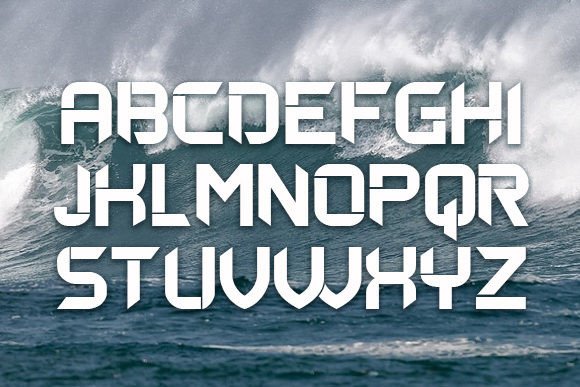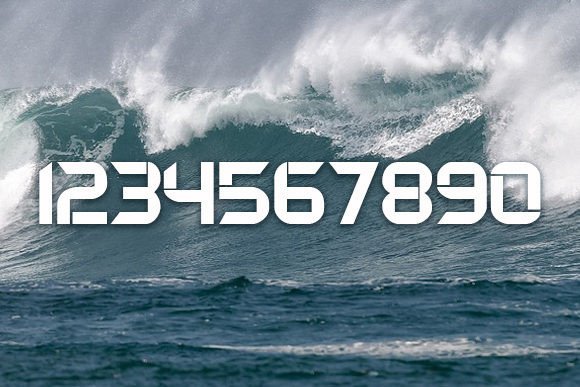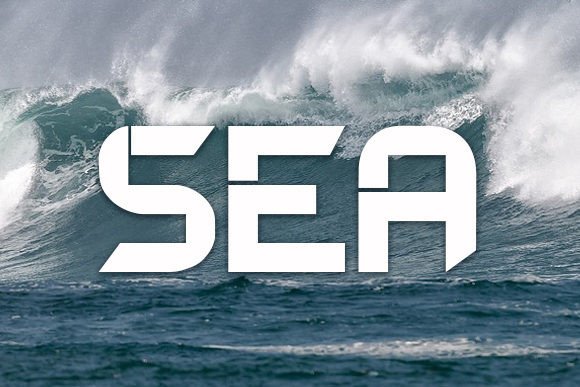
Introducing Esprit Font: Elevate Your Designs with Style
Are you tired of using the same old fonts in your designs? Look no further than Esprit Font, a stylish display font that is sure to take your creations to the next level. With its unique and eye-catching design, Esprit Font is perfect for designers and crafters who want to add a touch of sophistication and elegance to their work.
What is Esprit Font?
Esprit Font is a modern display font that is designed to make a statement. Its sleek and stylish design makes it perfect for use on a variety of materials, including posters, flyers, T-shirts, and more. Whether you’re a professional designer or a crafty DIY enthusiast, Esprit Font is sure to become a favorite in your collection.
Why Choose Esprit Font?
So why choose Esprit Font over other fonts on the market? Here are just a few reasons why Esprit Font stands out:
- Unique Design: Esprit Font has a unique and eye-catching design that is sure to grab attention. Its sleek lines and modern style make it perfect for designs that need a touch of sophistication.
- Versatility: Esprit Font is incredibly versatile, making it perfect for use on a variety of materials, from posters and flyers to T-shirts and more.
- High-Quality: Esprit Font is a high-quality font that is designed to produce crisp and clear text, even at small sizes.
How to Use Esprit Font
Using Esprit Font is easy. Here are a few tips to get you started:
- Pair it with Other Fonts: Esprit Font pairs well with a variety of other fonts, making it easy to create visually appealing designs.
- Experiment with Colors: Esprit Font looks great in a variety of colors, so don’t be afraid to experiment and find the perfect color for your design.
- Use it for Headlines: Esprit Font is perfect for use in headlines, where its bold and eye-catching design can really make an impact.
Design Ideas Using Esprit Font
Esprit Font is a versatile font that can be used in a variety of design projects. Here are a few ideas to get you started:
- Posters: Use Esprit Font to create eye-catching posters for events, promotions, and more.
- Flyers: Esprit Font is perfect for use on flyers, where its bold and eye-catching design can help grab attention.
- T-Shirts: Use Esprit Font to create custom T-shirts for events, promotions, or just for fun.
- Social Media Graphics: Esprit Font can be used to create eye-catching social media graphics, including Facebook posts, Instagram stories, and more.
- Font Type: Display Font
- Font Style: Stylish, Modern